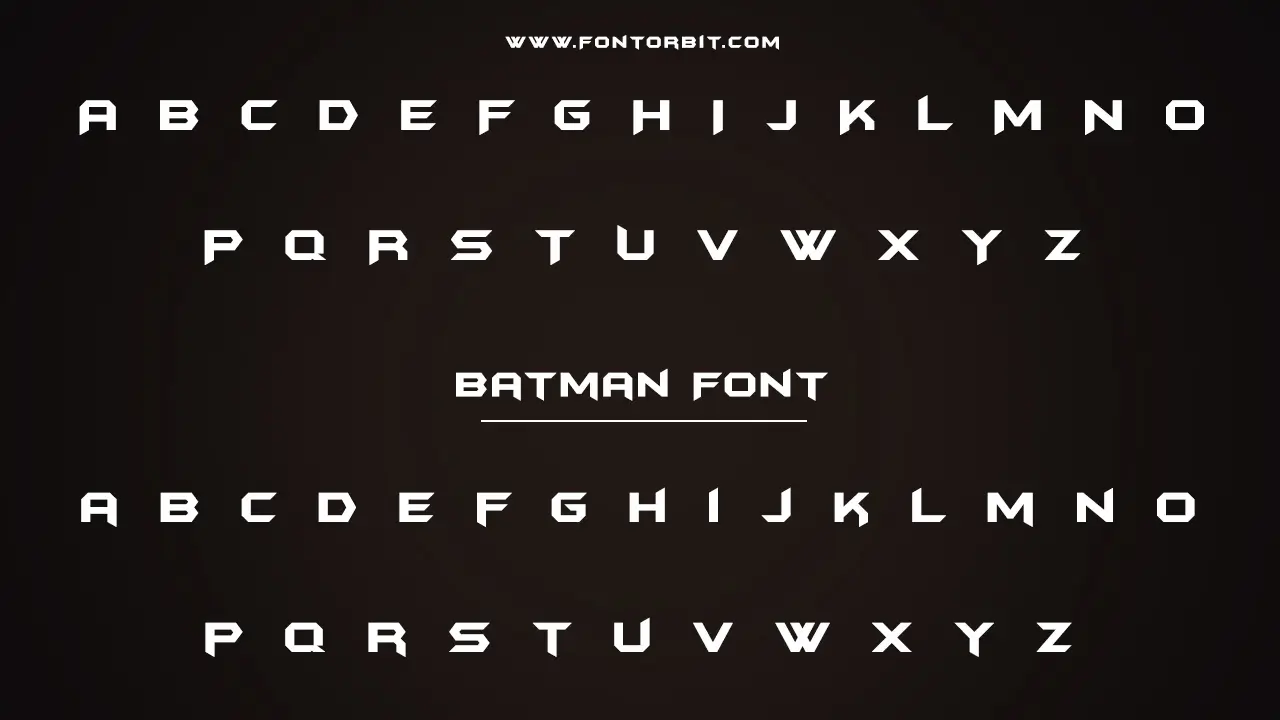
The Batman Font is a striking display typeface inspired by the iconic logo and visual themes associated with the Batman Forever movie and DC Comics.
It captures the essence of Gotham City’s Dark Knight and brings it to life through techno fonts and modern fonts. With Batman Forever’s distinctive design, this font family has become popular for graphic design, comic book artwork, posters, and other commercial purposes.
Where Batman Font Is In Use
- Posters: Perfect for superhero-themed movie posters and comic events.
- Logos: Ideal for creating logos that need a bold, futuristic, and comic-book flair.
- Packaging: Used in packaging designs for comic books, merchandise, and memorabilia.
- Graphic Design: Favored by designers for creating text effects in graphic design projects.
- Branding: Essential for brands aiming for a dynamic and heroic aesthetic.
- Websites: Used in web design for a bold, attention-grabbing look.
- Text Effects: Perfect for creating eye-catching headlines and captions for content related to DC Comics and other superhero genres.
These fonts share the sci-fi and futuristic vibe of the Batman Forever Font, making them great alternatives when looking for similar designs.
- Batman Font pairs well with the Anton font family for a sharp, modern headers and body text look.
- Kane Bold Italic complements the font for added flair and emphasis in titles.
- For a more classic feel, pairing it with Andes creates a unique balance of boldness and elegance.
1.What Is The Batman Font?
The Batman Font is a display font inspired by the Batman Forever movie title, designed for bold, attention-grabbing designs related to DC Comics and superhero themes.
3.What Are Some Fonts Similar To The Batman Font?
Similar fonts include Modi Thorson, Android Hollow, and Trattopenlife, which also feature sci-fi and techno font styles.
4.Where Can I Use The Batman Font?
It is perfect for comic book covers, posters, branding, logos, and other graphic design projects.